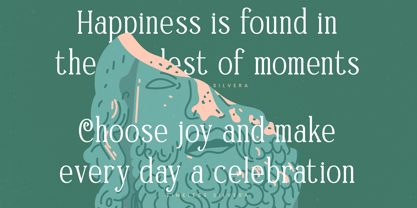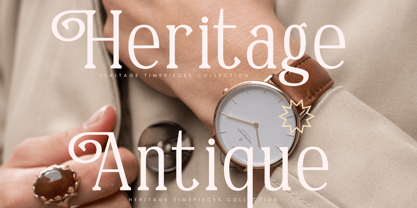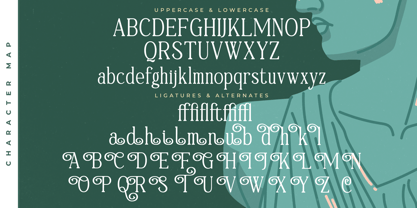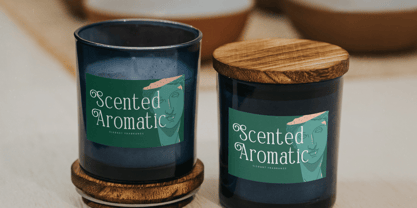
Timeless Silvera
por Letterena Studios
La familia tipográfica Timeless Silvera fue diseñada por Heru Utama Putra y publicada por Letterena Studios. Timeless Silvera contiene 2 estilos y opciones de paquete familiar.
Timeless Silvera – Alternate Serif Font , from Letterena, is a Luxury Serif font, suitable for any projects such as: logos, branding projects, homeware designs, product packaging, mugs, quotes, posters, shopping bags, t-shirts, book covers, name card, invitation cards, greeting cards, label, photography, watermark, special events, and all your other luxury and beautiful projects that need a Luxury Serif taste.